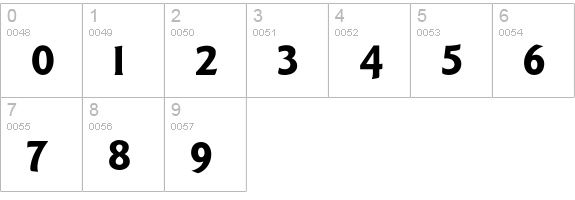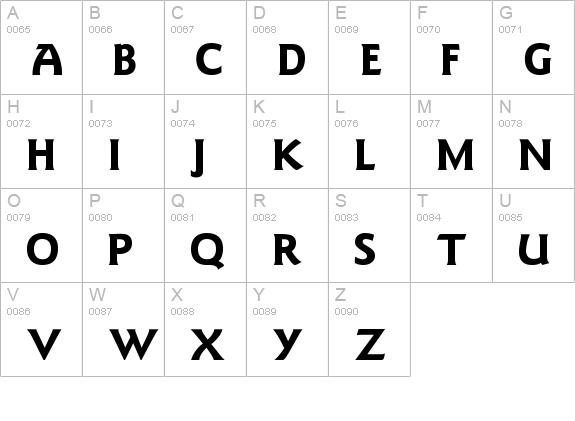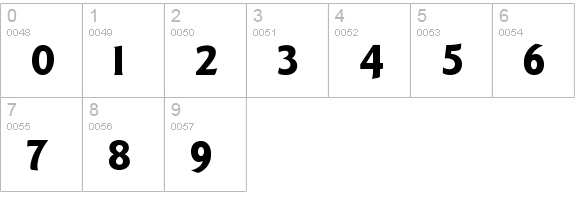
GoudySansBold Font Details
GoudySansBold is a modern and bold typeface that exudes confidence and professionalism. With its strong and clean lines, this font is perfect for making a statement in your designs. The thick strokes and rounded edges give GoudySansBold a timeless appeal that is sure to stand out. What's even better is that GoudySansBold is available for free download at FontsMarket.com. This means you can easily access this versatile font for all your creative projects without any cost. Whether you're designing a poster, logo, or website, GoudySansBold is a reliable choice that will elevate your work to the next level. Don't miss out on this fantastic opportunity to add GoudySansBold to your font collection today!